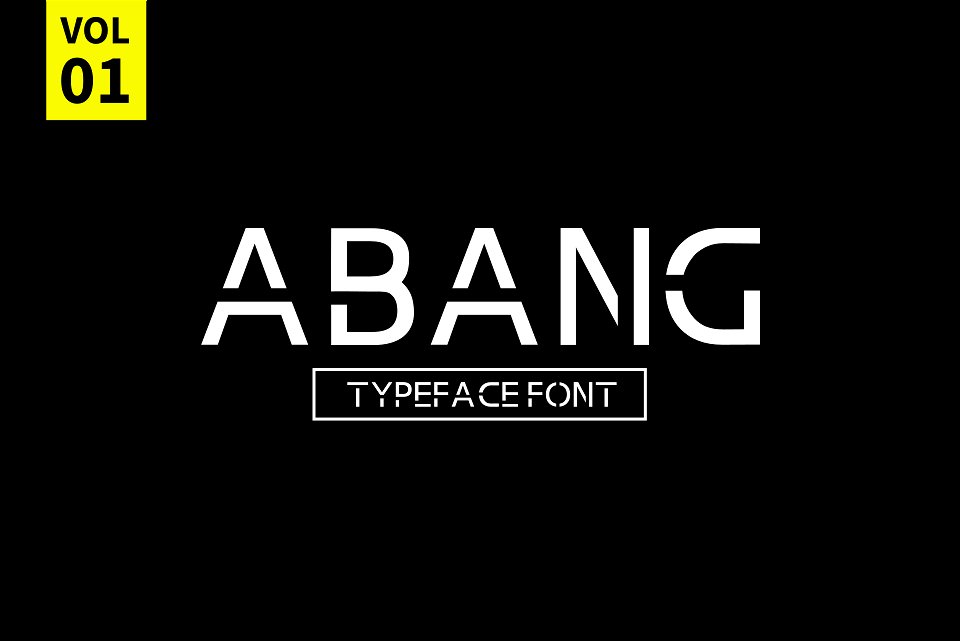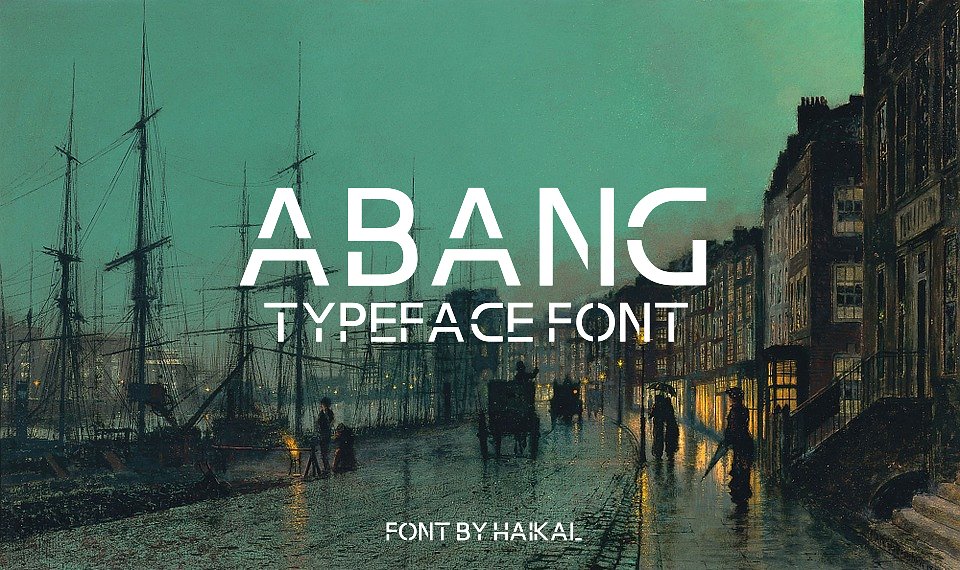
Abang Typeface Font
Abang is a clean and simple vintage sans serif font, with smooth edges to simulate vintage printing. Perfect for vintage logo designs, headers and small amounts of text. It contains an uppercase alphabet with numbers and symbols.